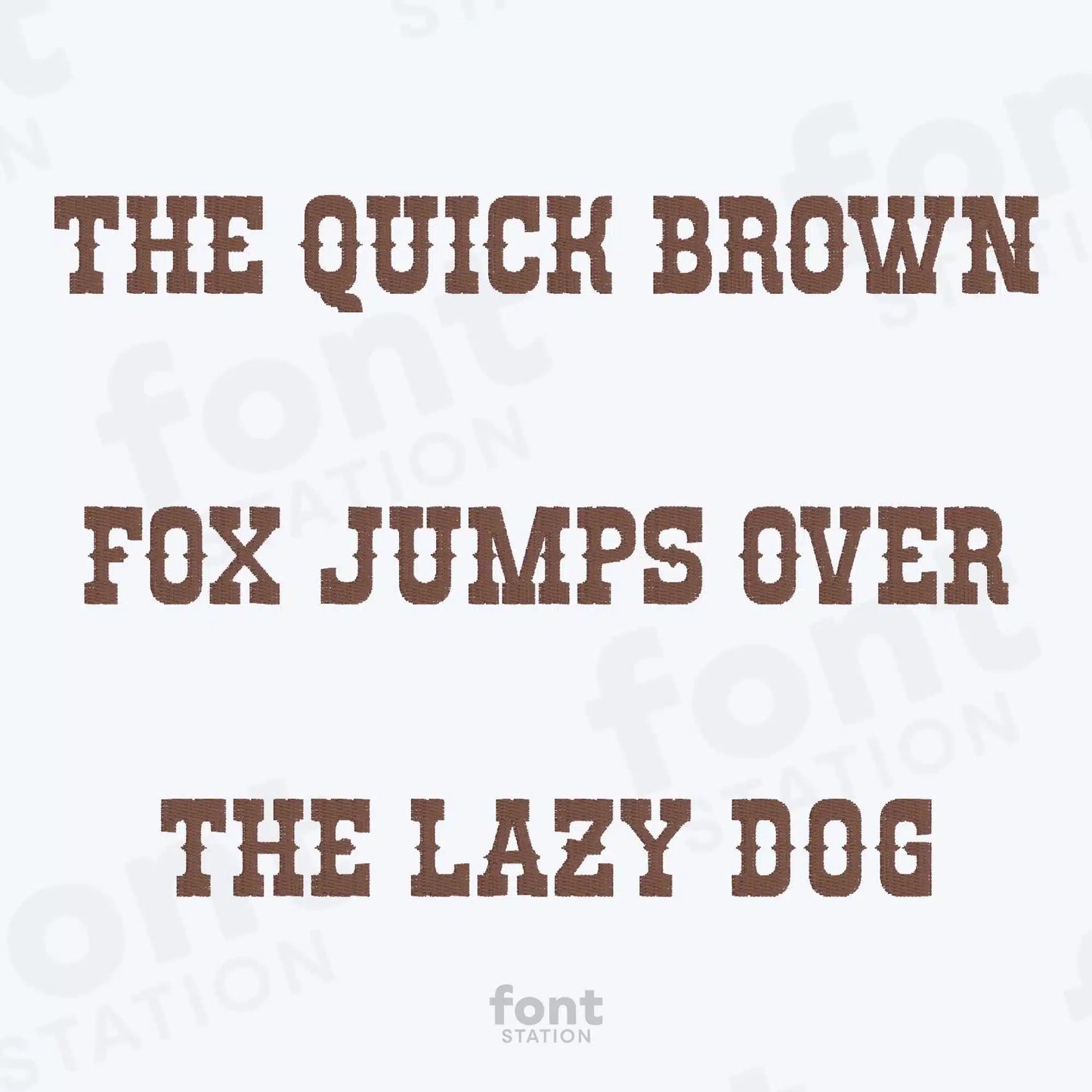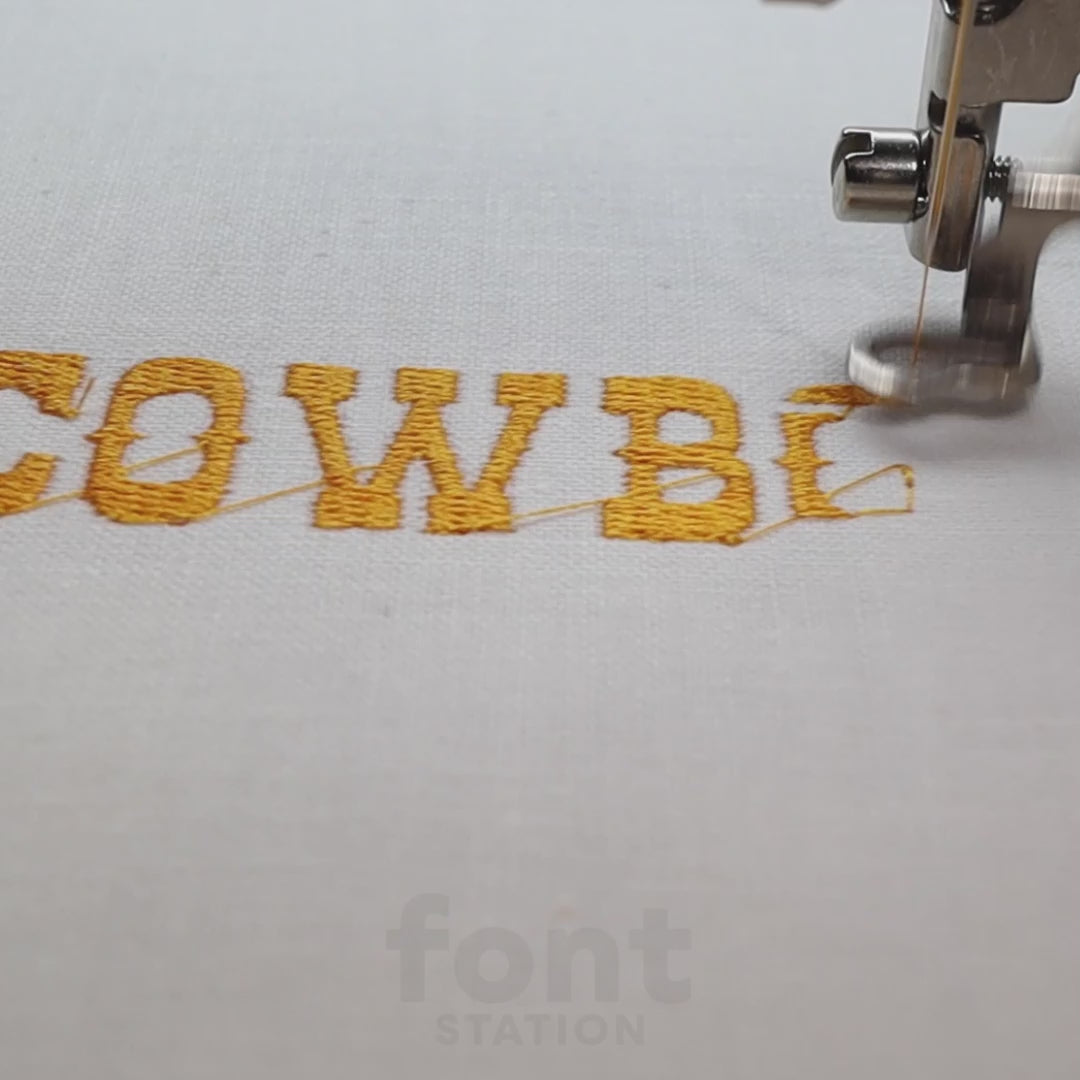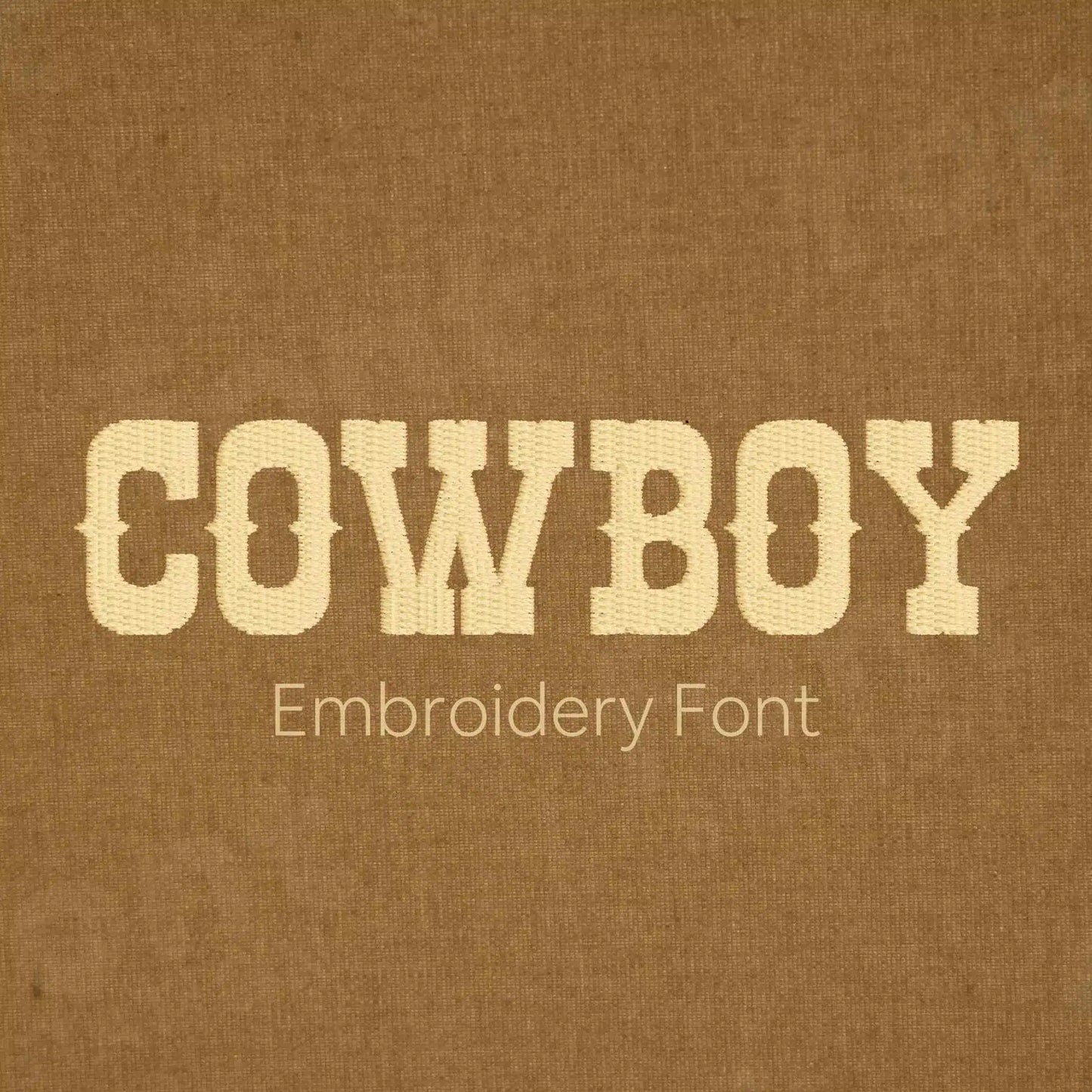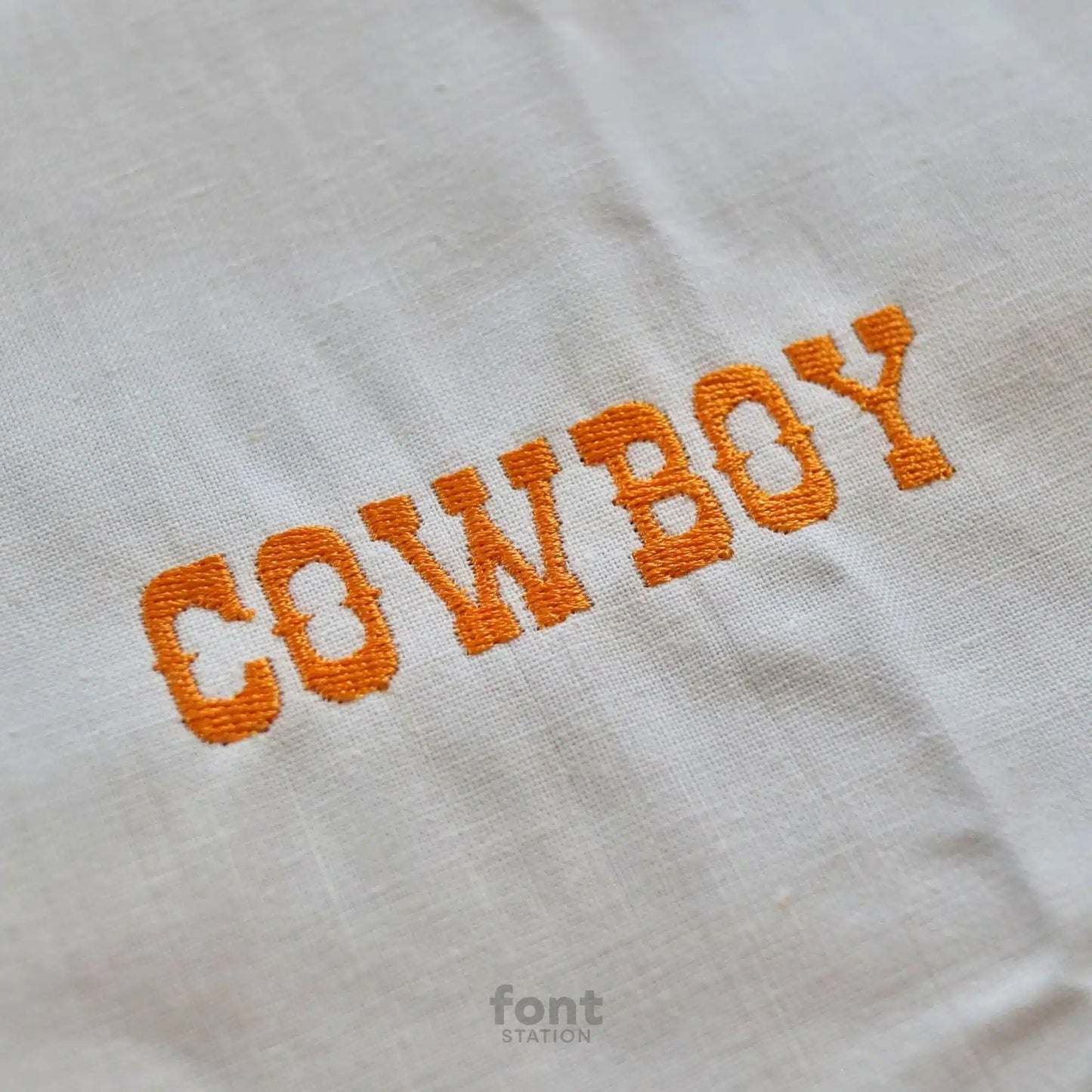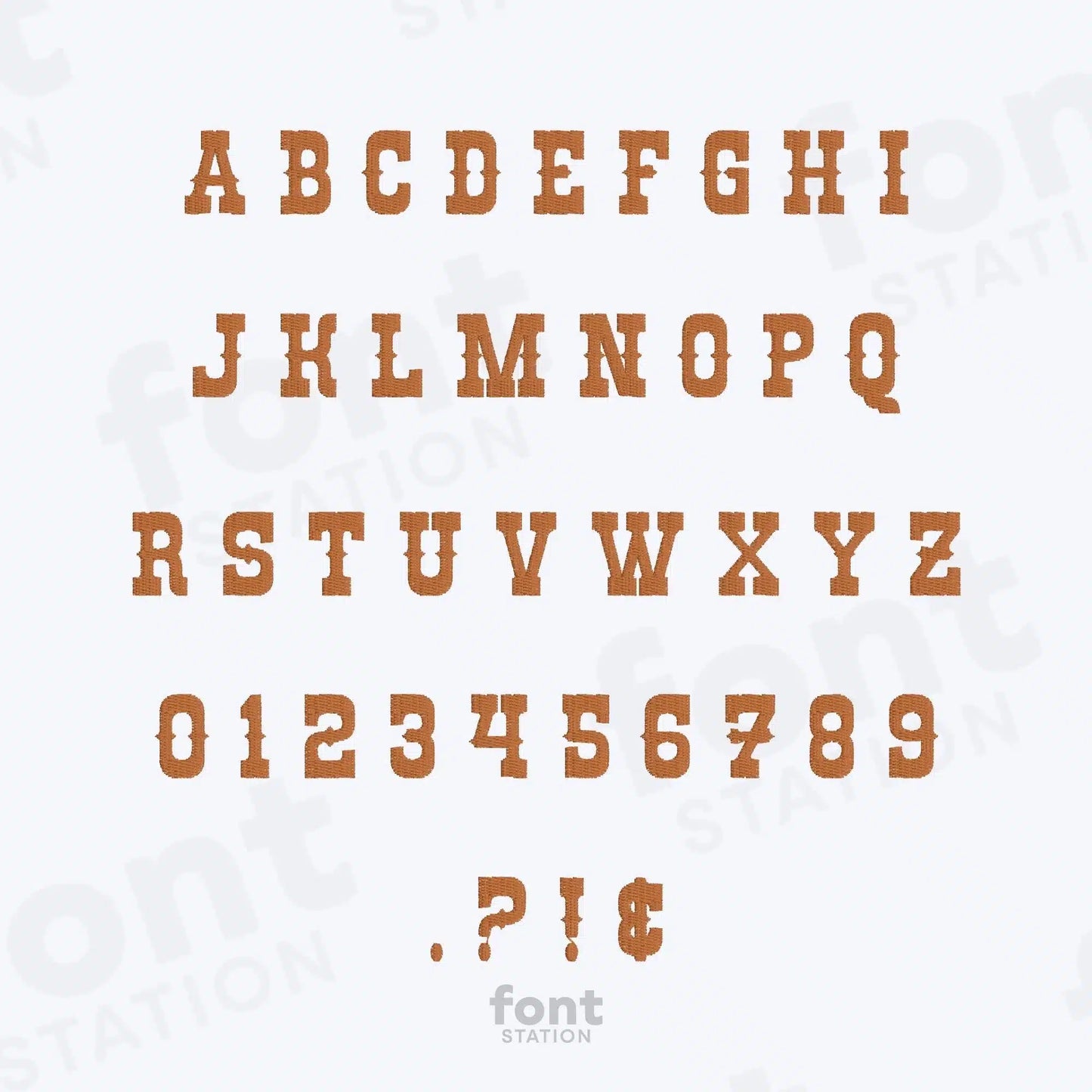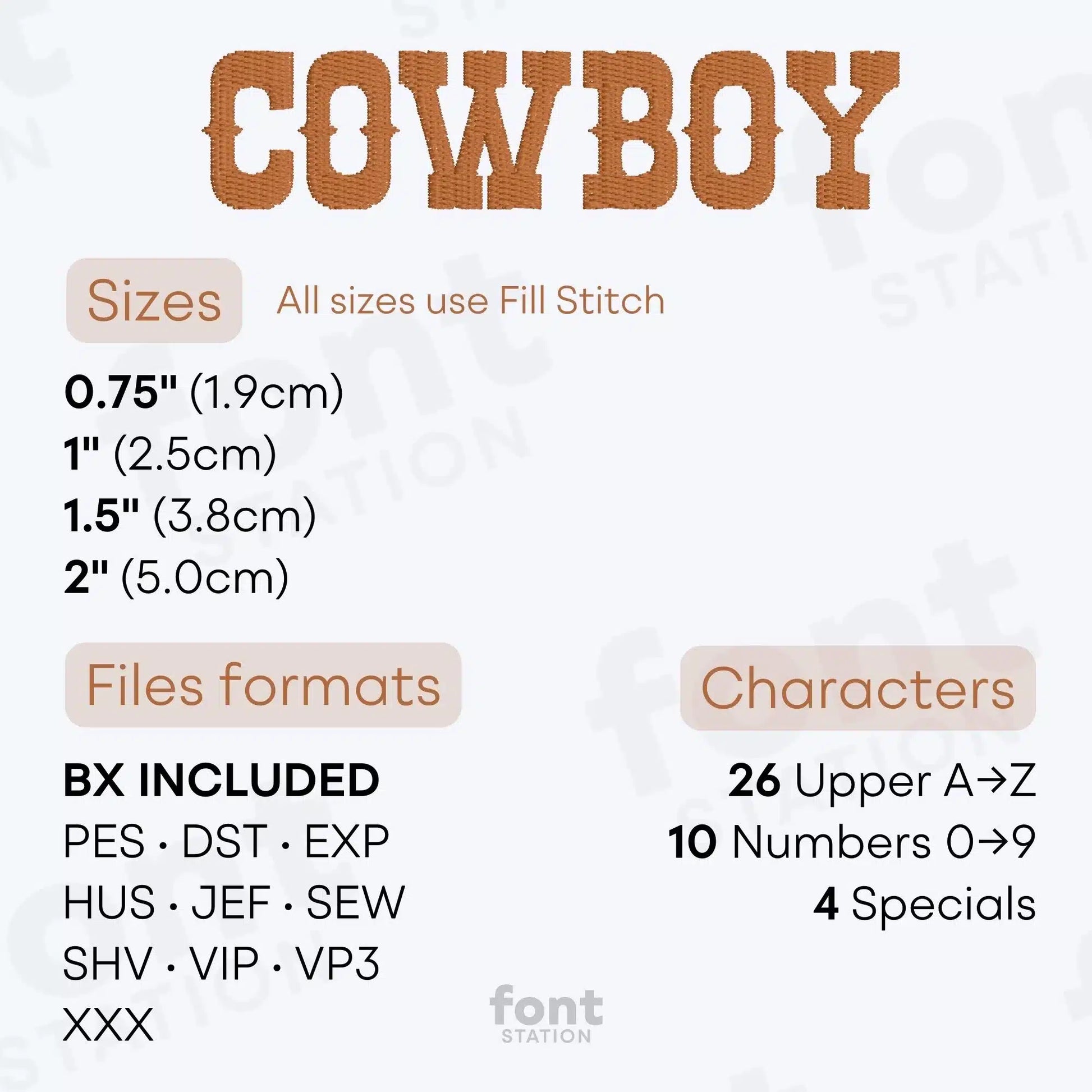
Western Embroidery Font
About the Western Embroidery Font
Add a bold rustic vibe to your designs with our Western embroidery font!
Bring rustic charm to your embroidery projects with our Western embroidery font. Professionally digitized for clean stitching on most fabrics, this Cowboy-style alphabet is perfect for rodeo gear, rustic decor, themed gifts, and more. Customers love its strong, western flair, and we can’t wait to see what you create with it!